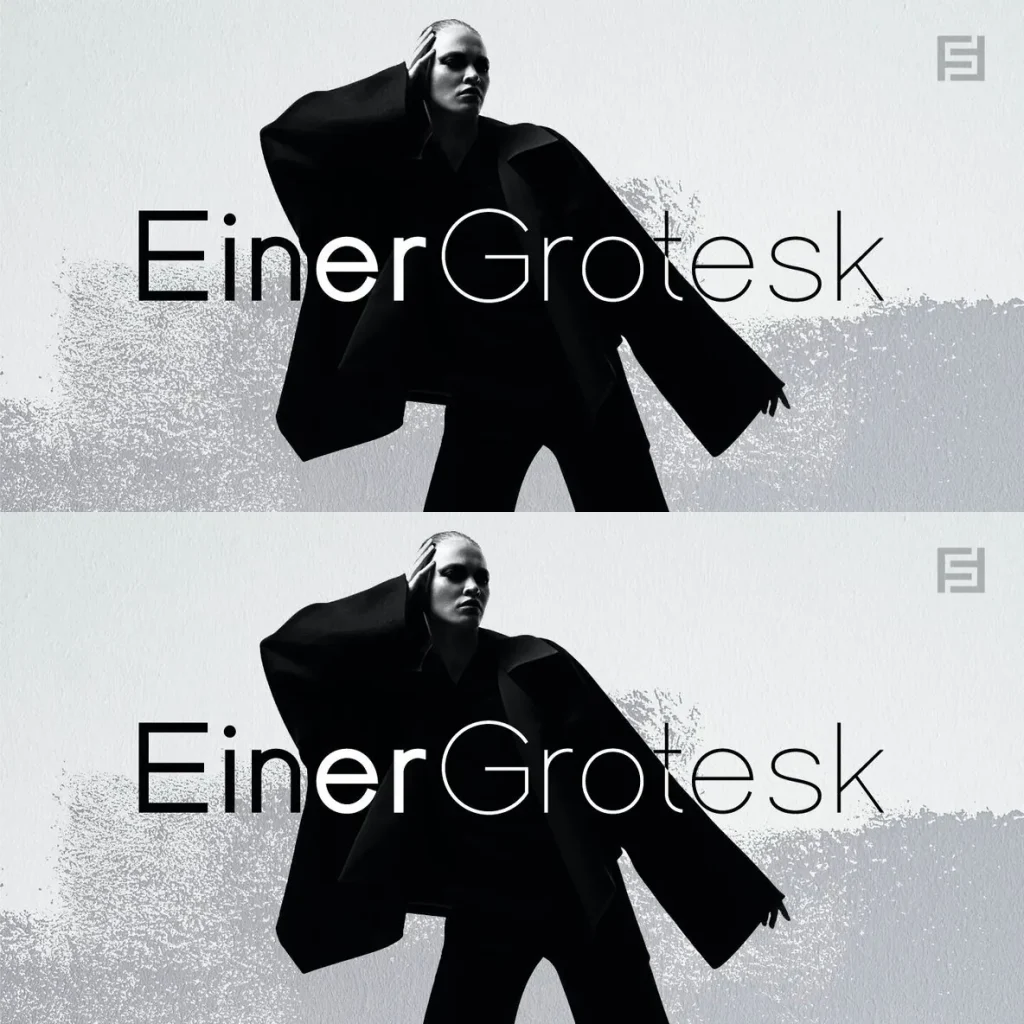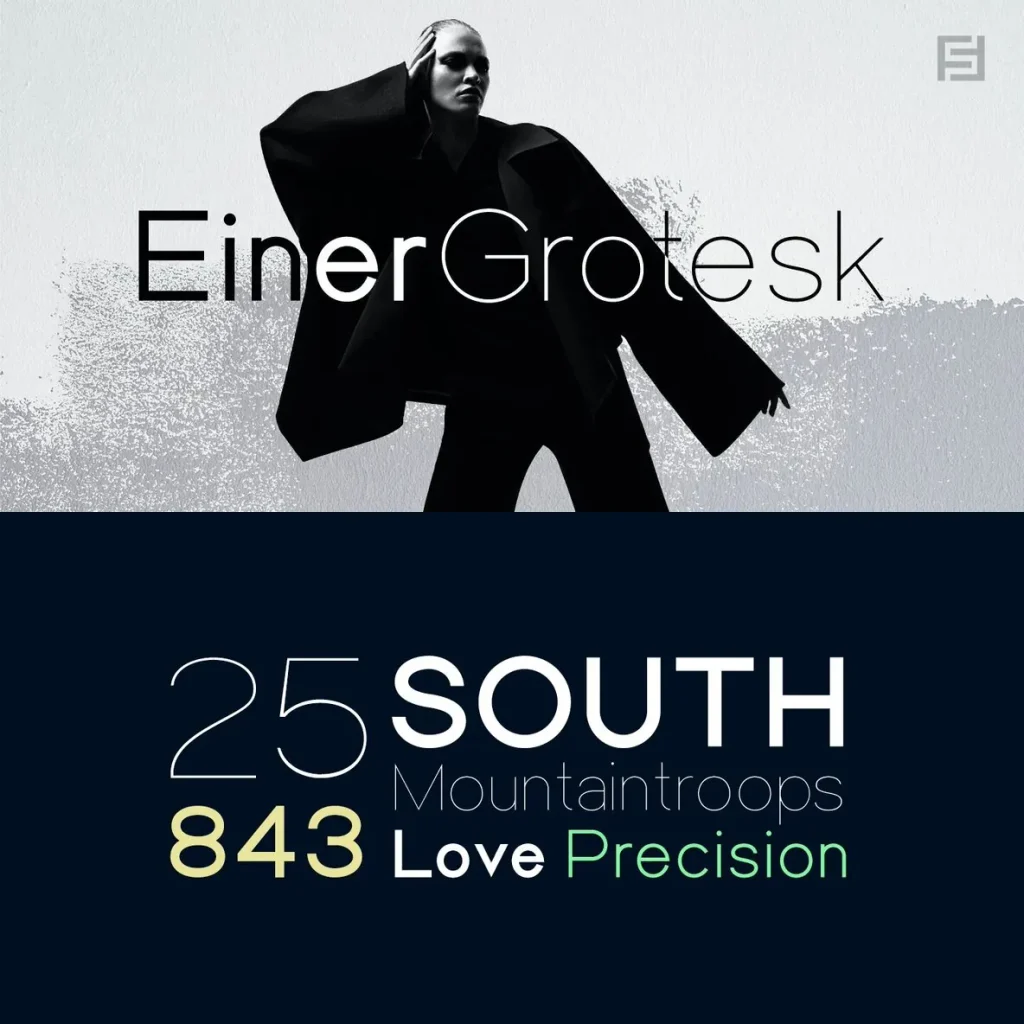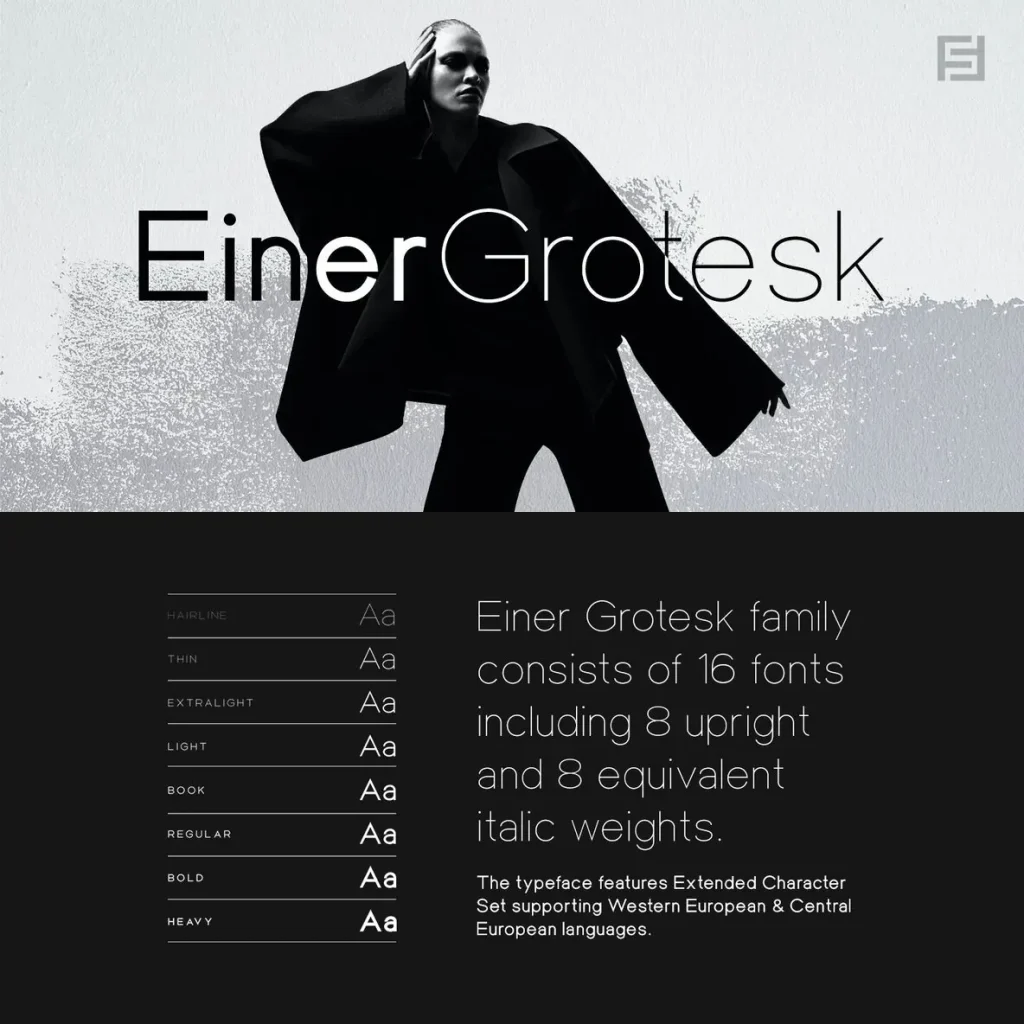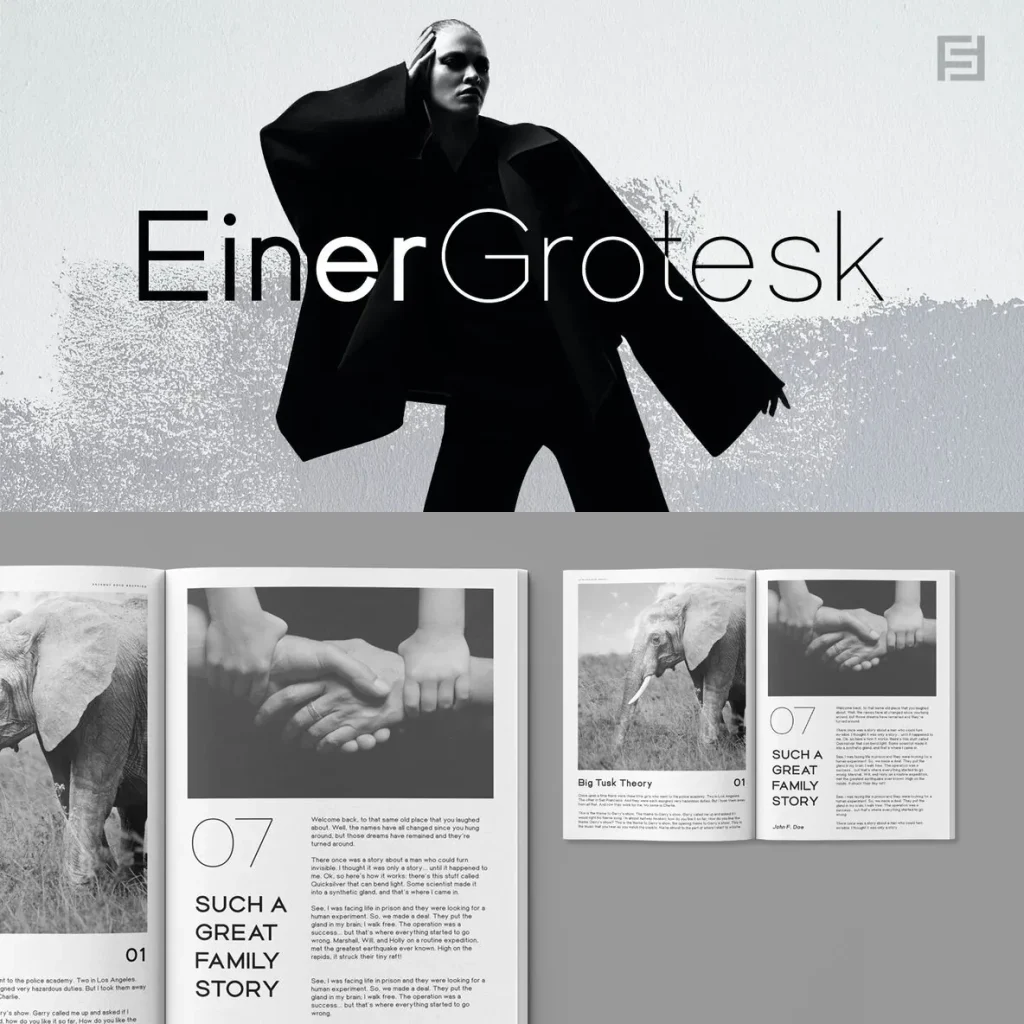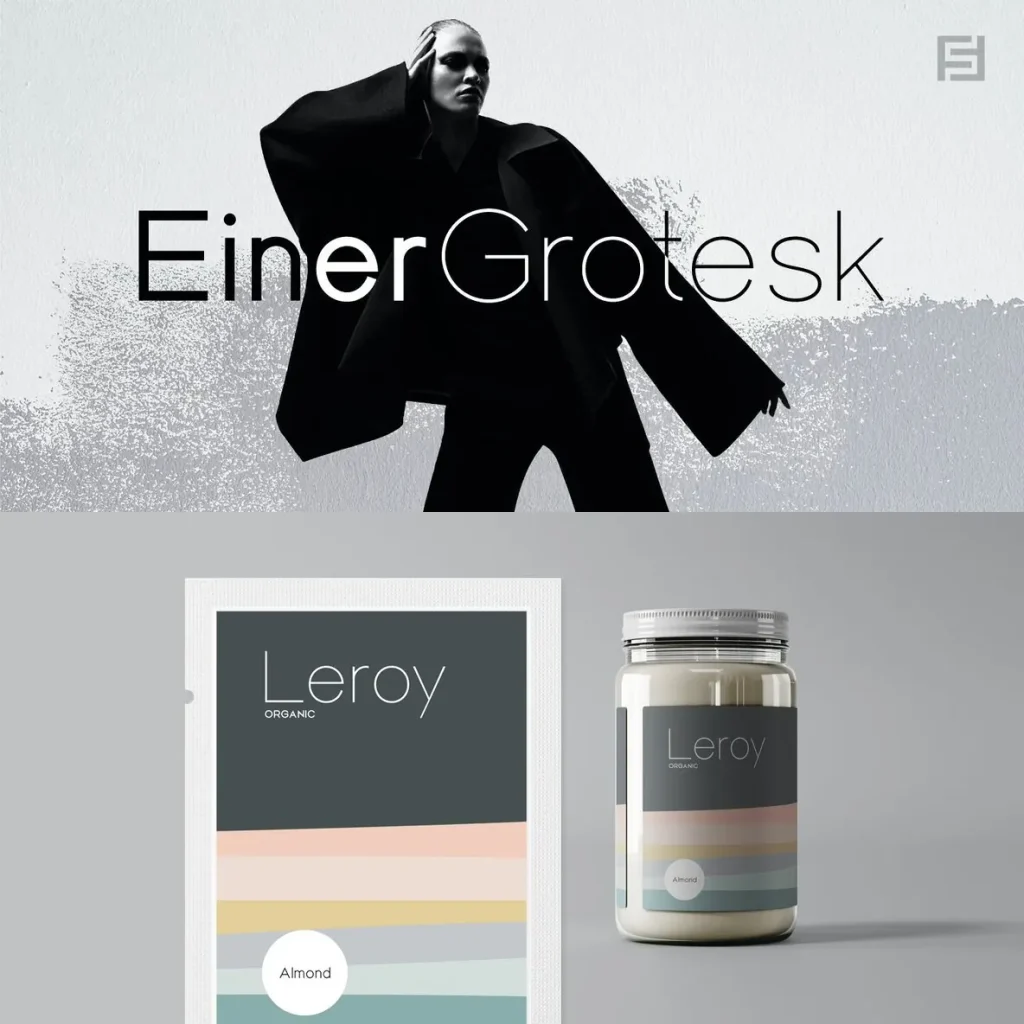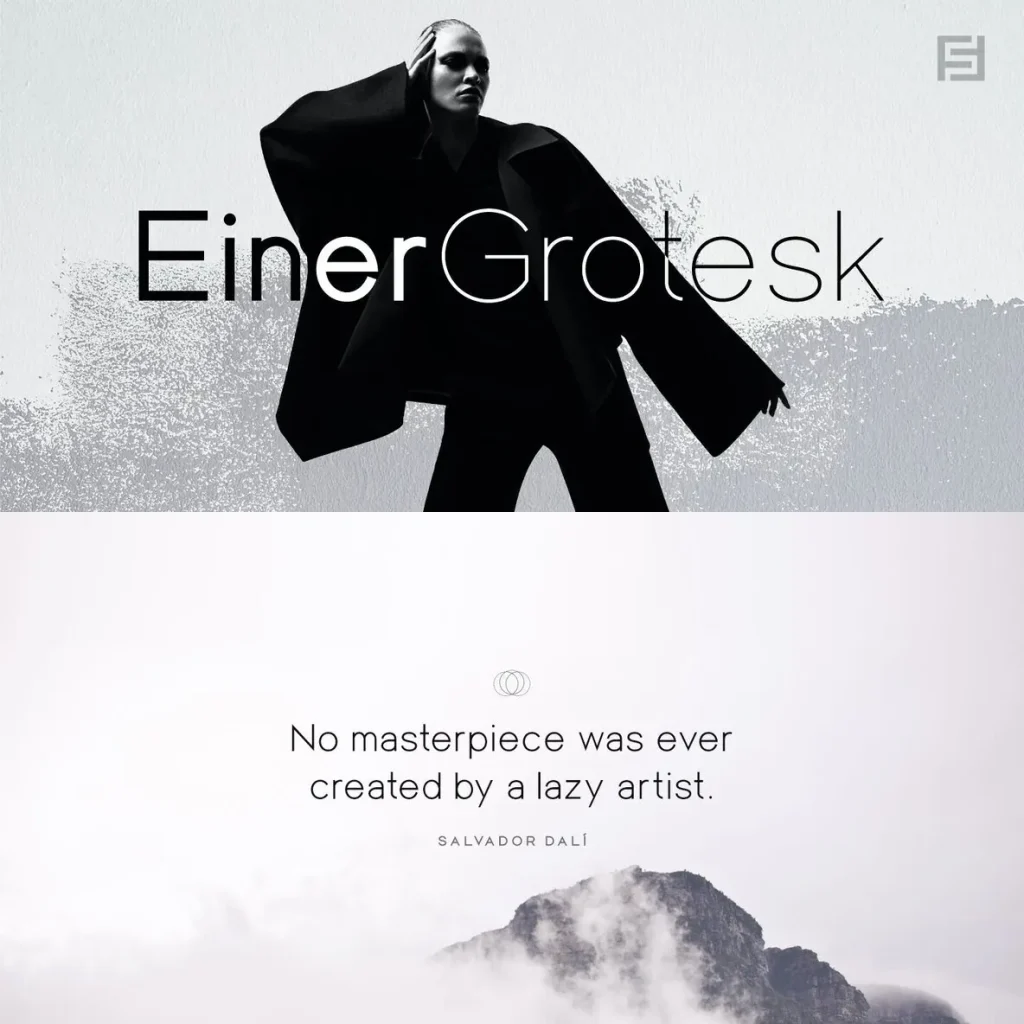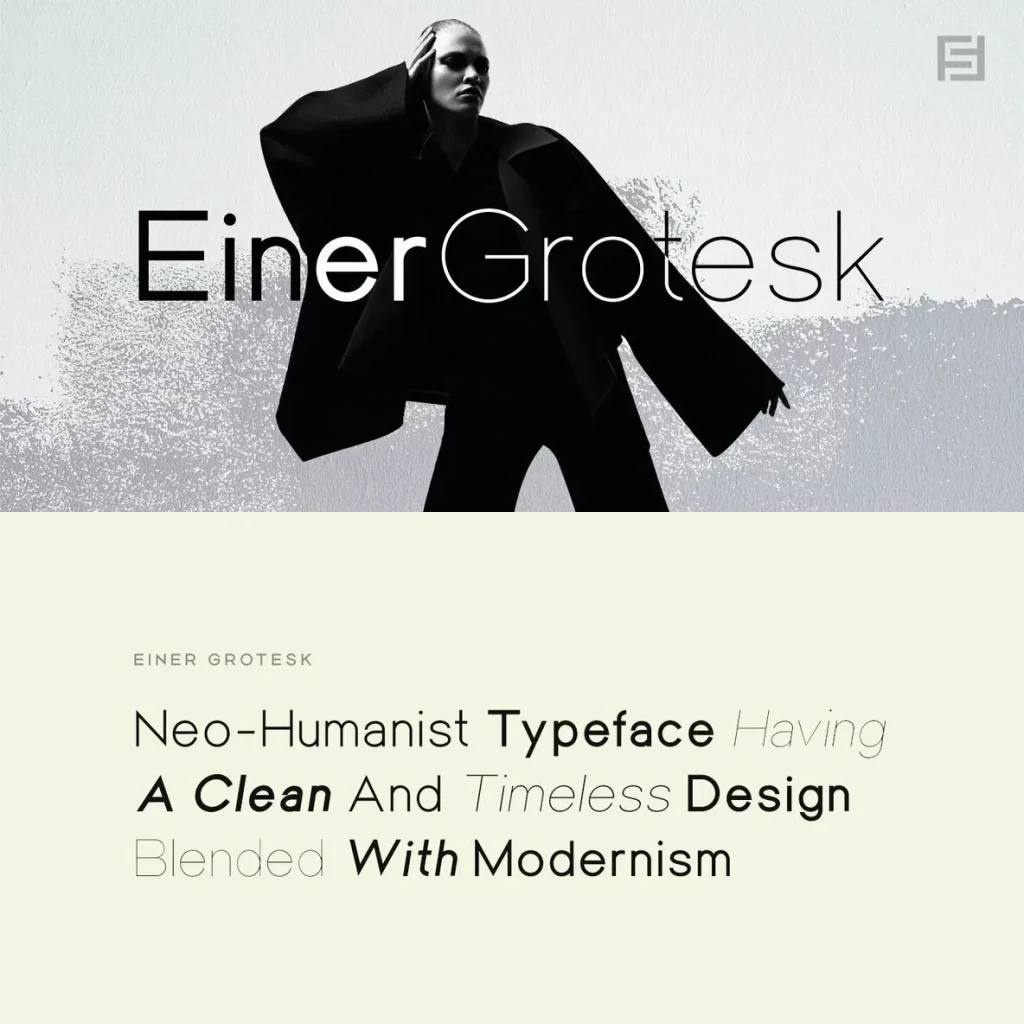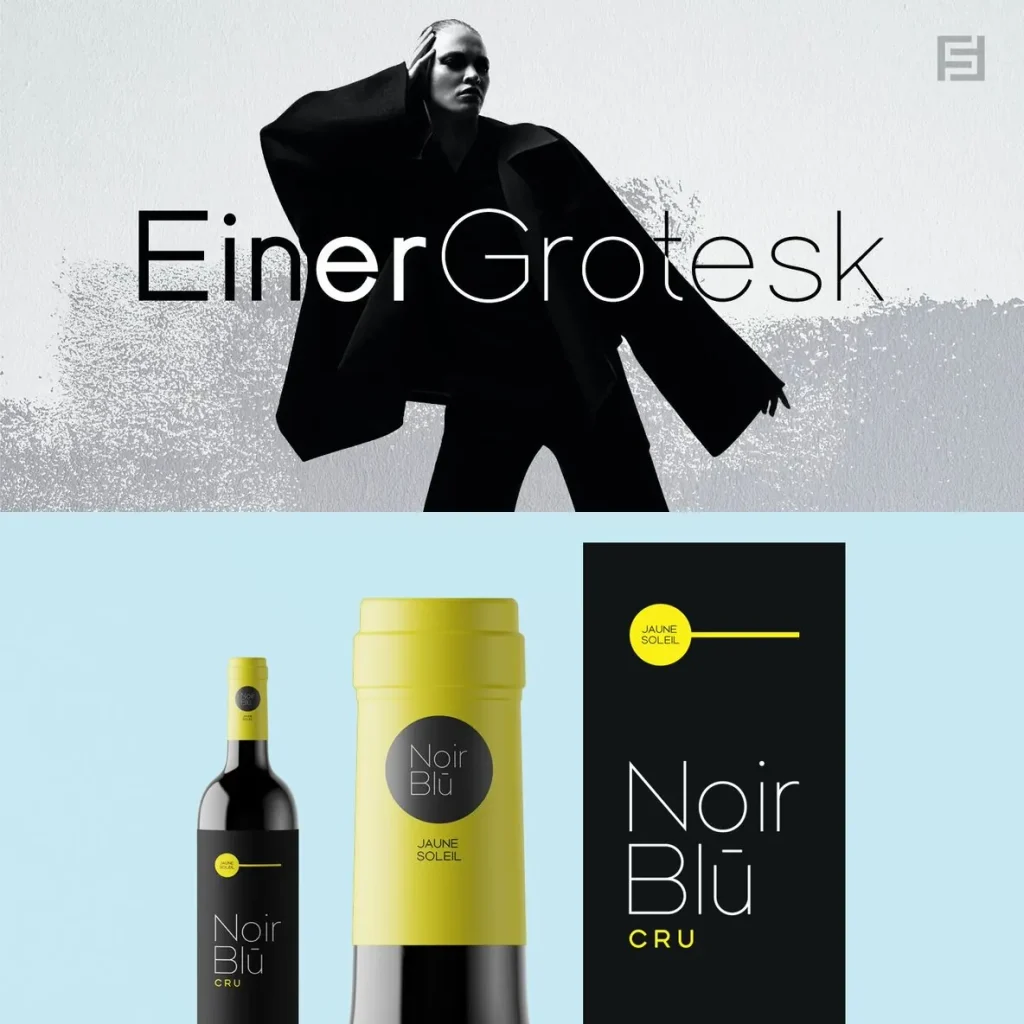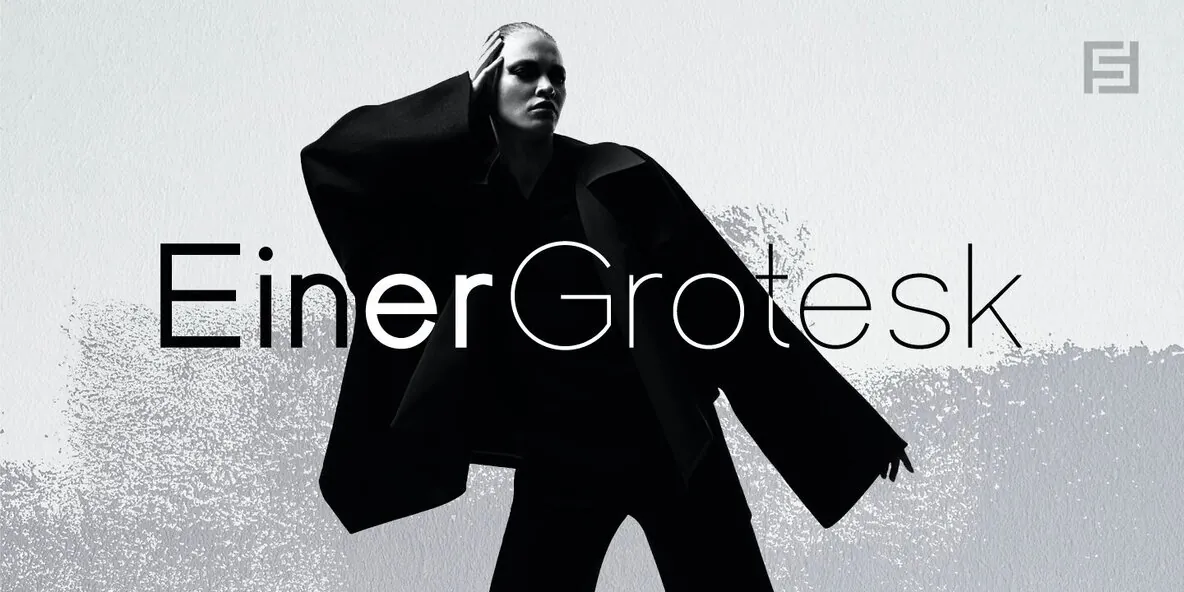
Einer Grotesk — Geometry with Poise
Einer Grotesk is a modern sans-serif typeface family built around clean geometry, refined proportions, and contemporary functionality. Its measured forms give text and display settings a clear, composed presence, making it a dependable choice for designers working across print and screen.
Designed for flexible use, EINER GROTESK provides a strong foundation for branding, editorial projects, digital products, and visual identity systems. It brings order, clarity, and a polished typographic voice to layouts that need to feel current, structured, and visually assured.